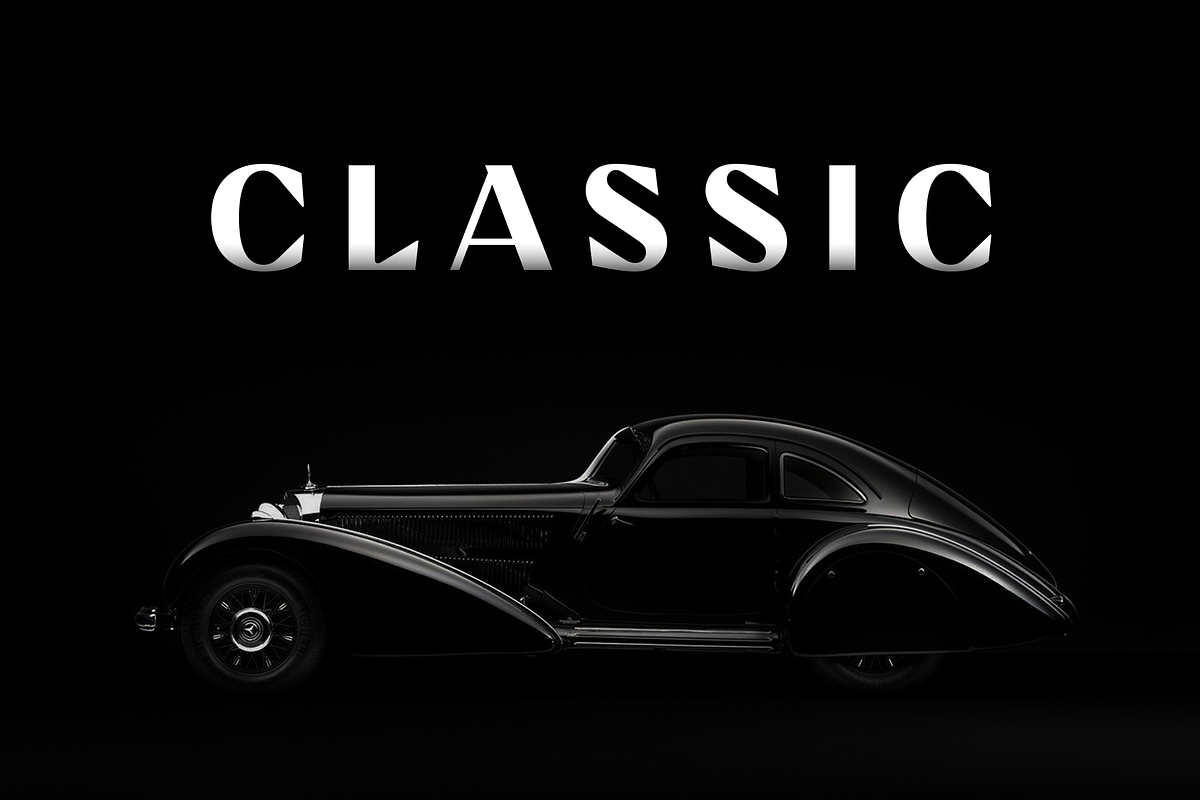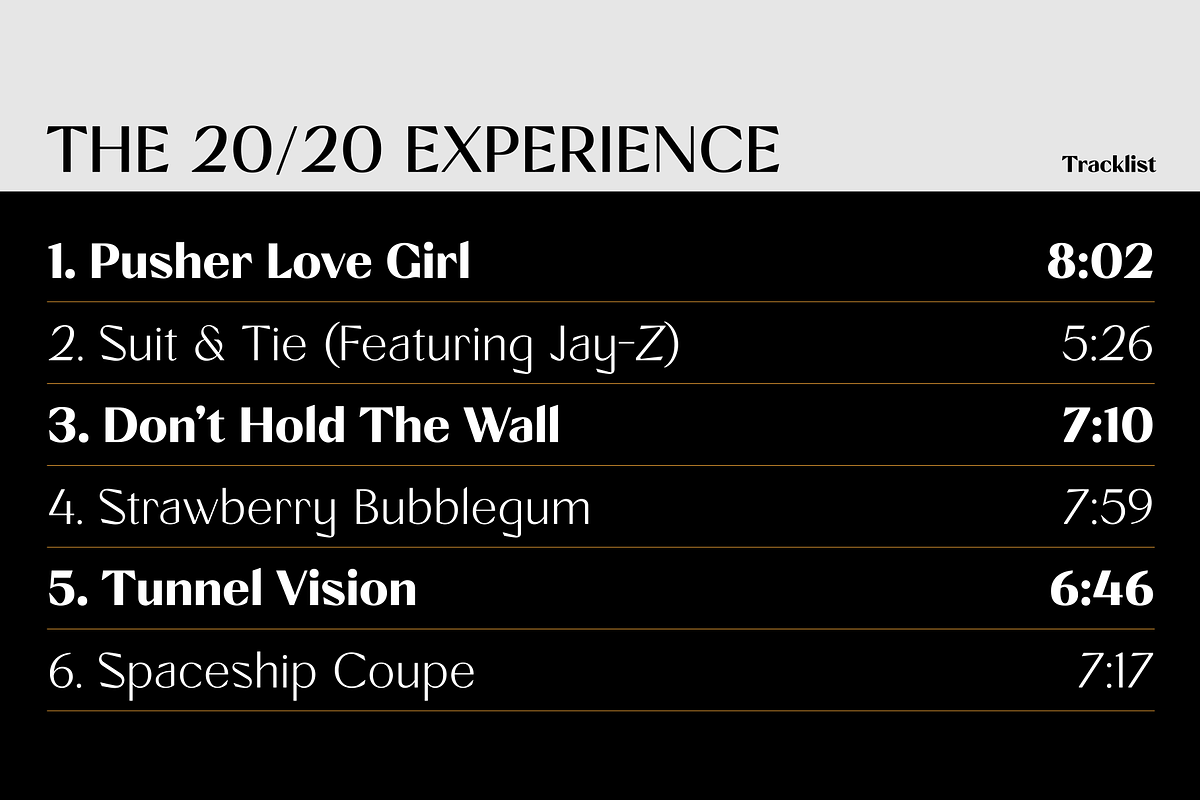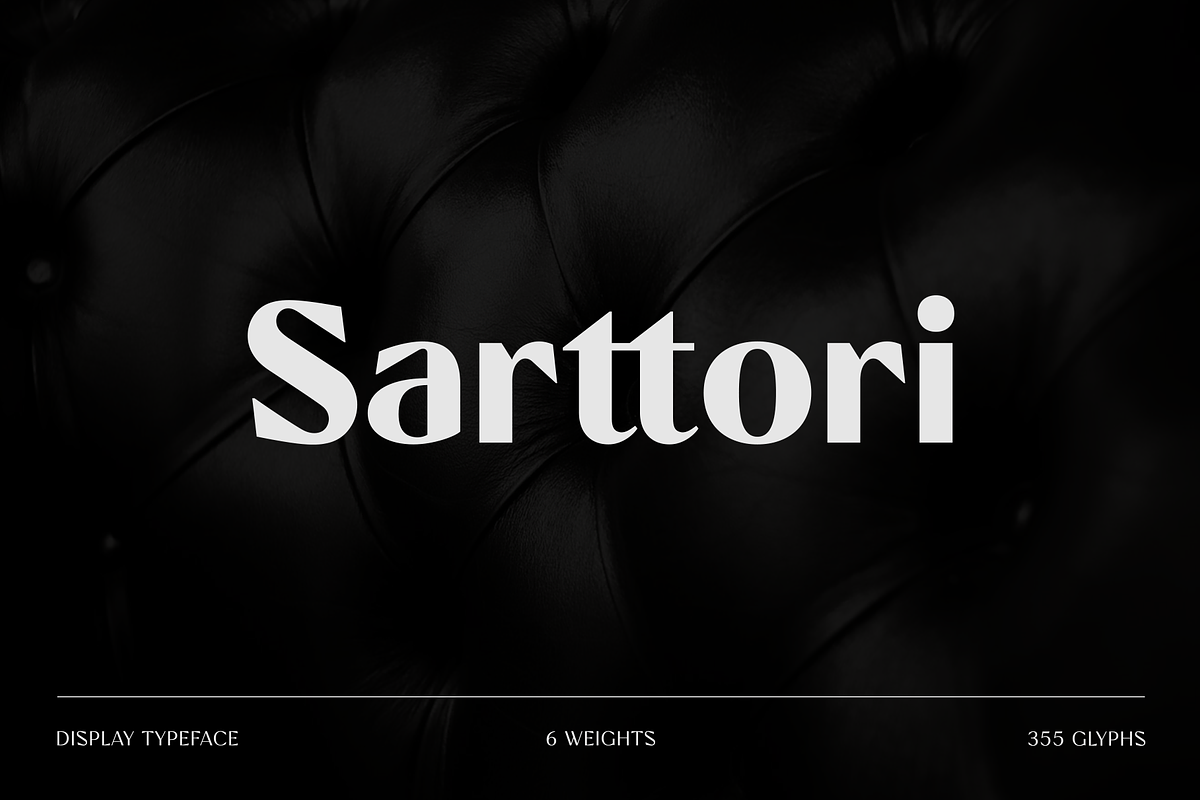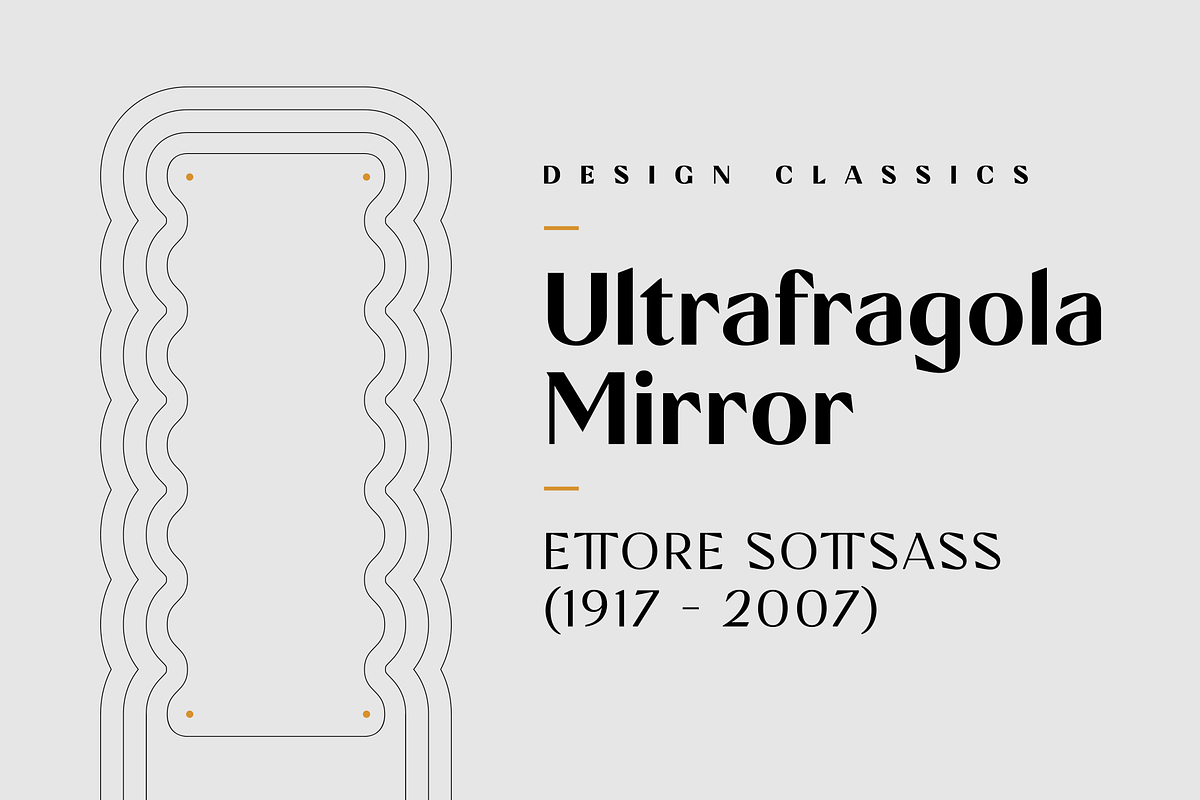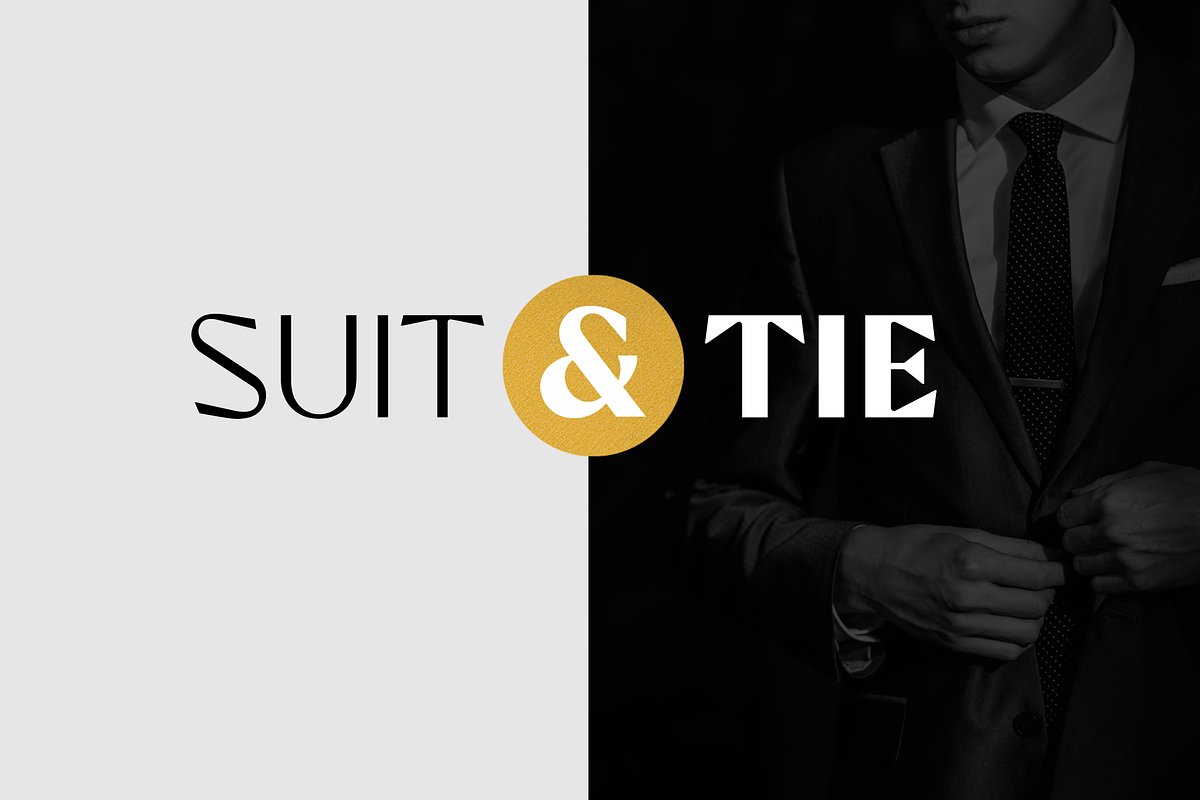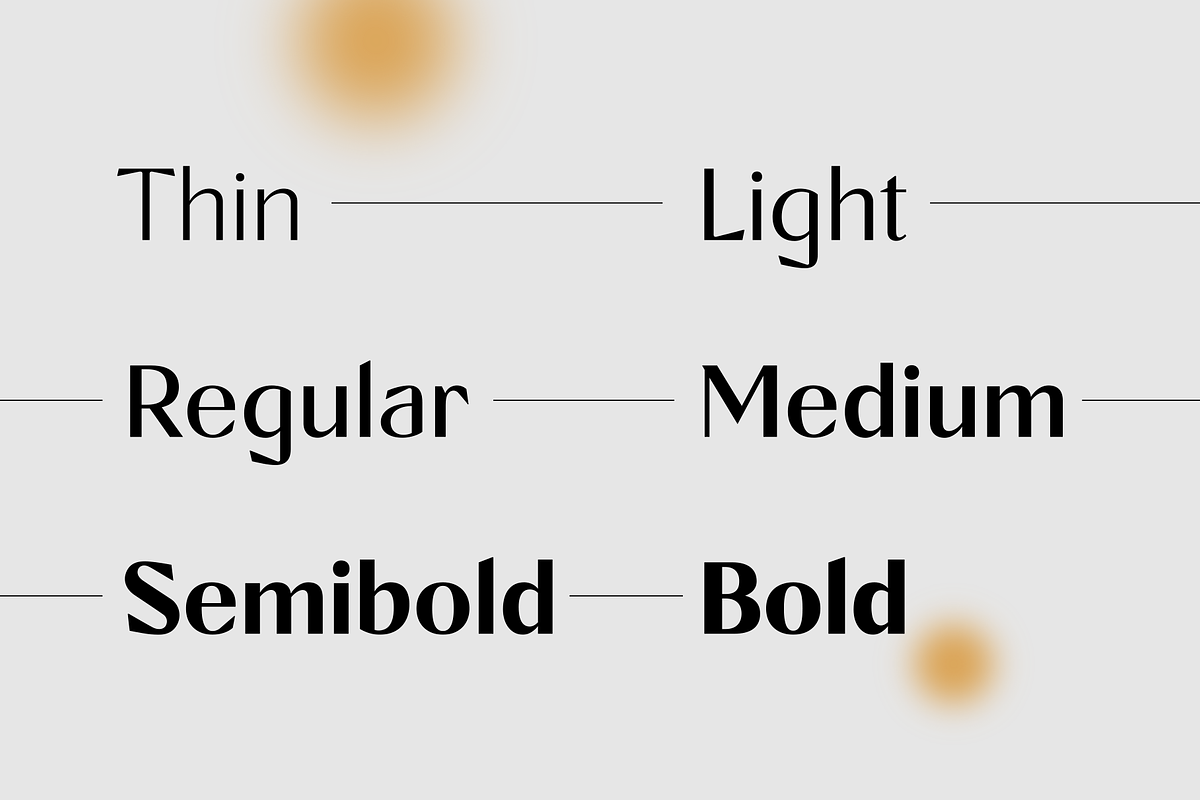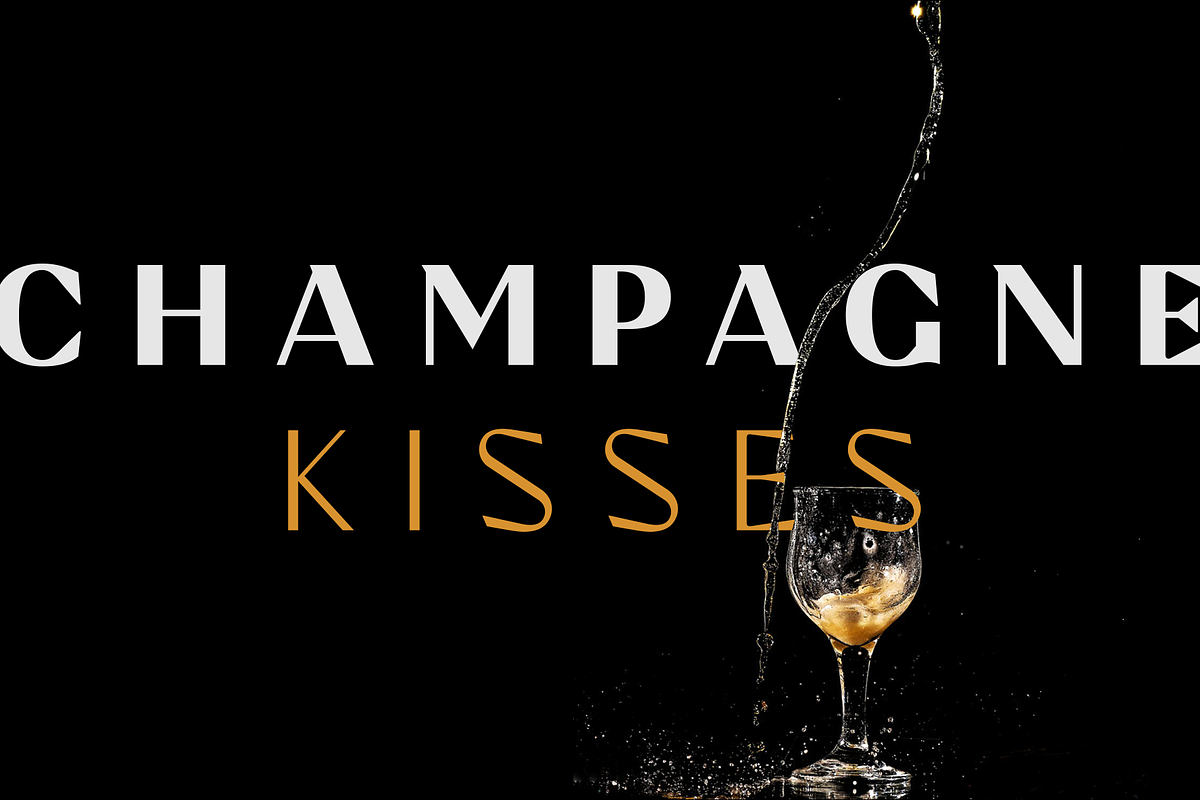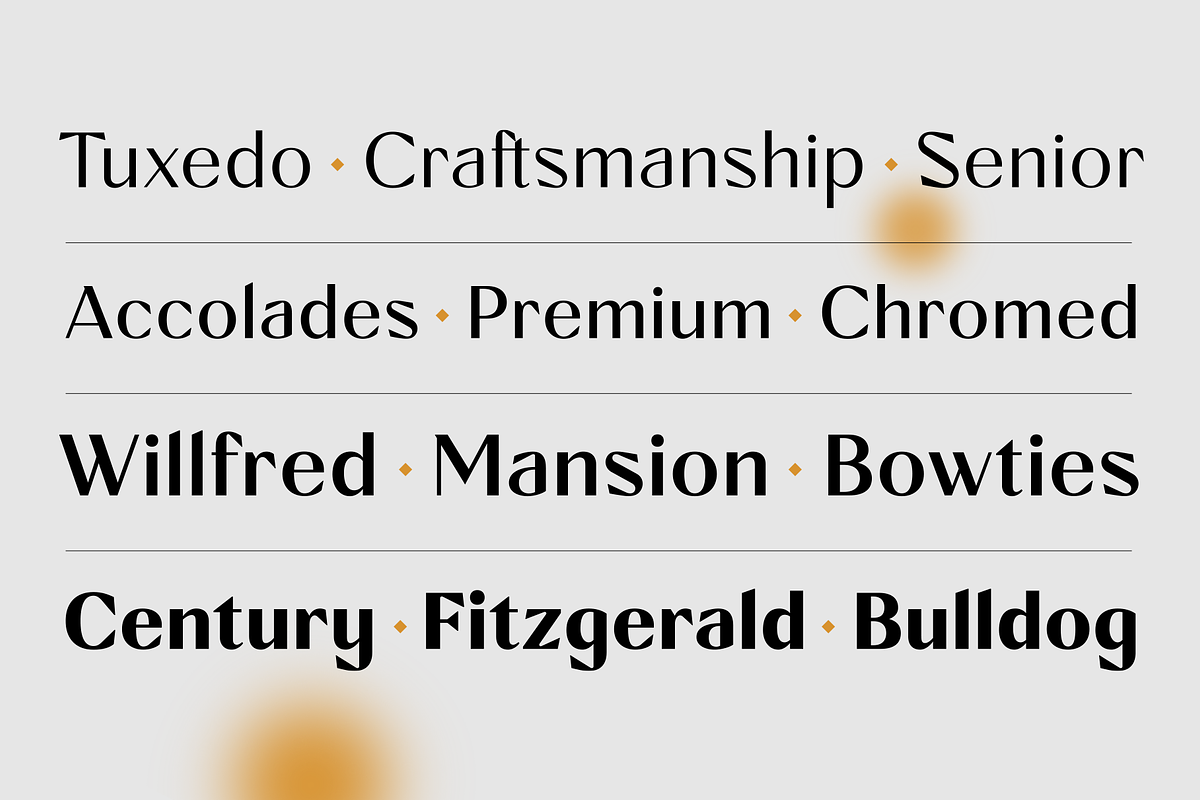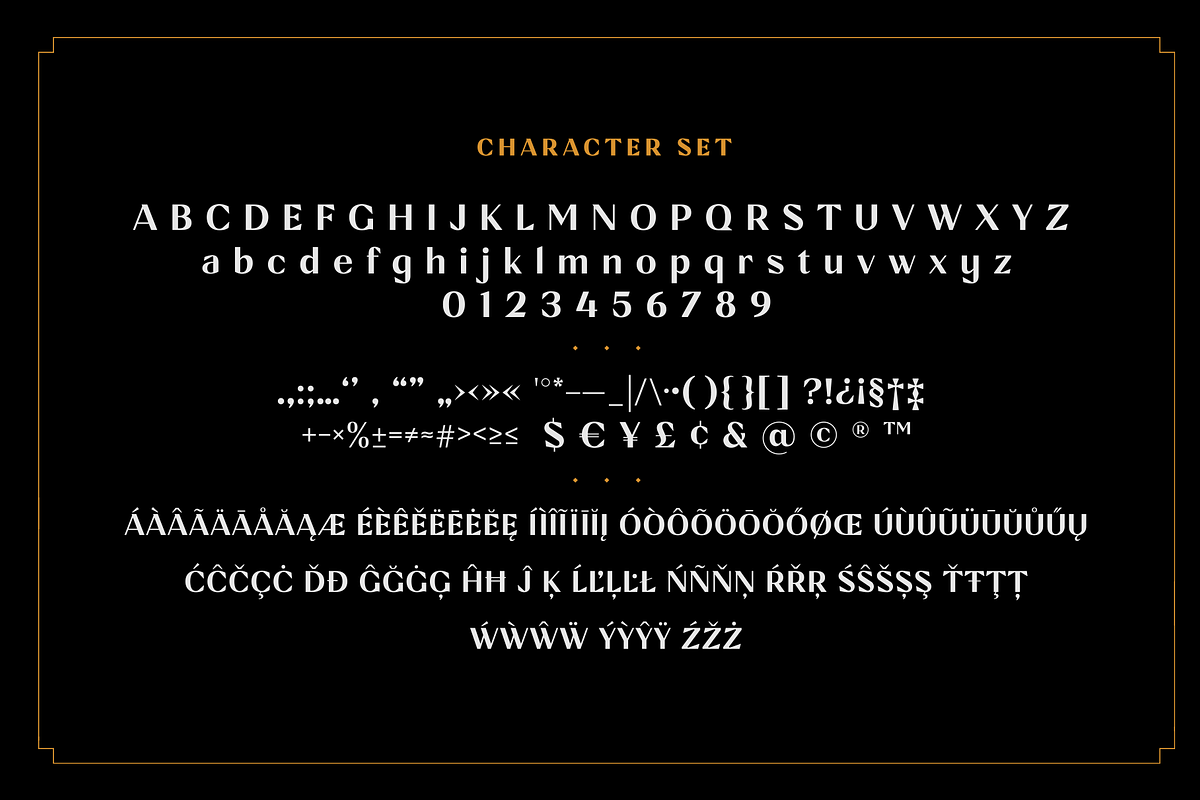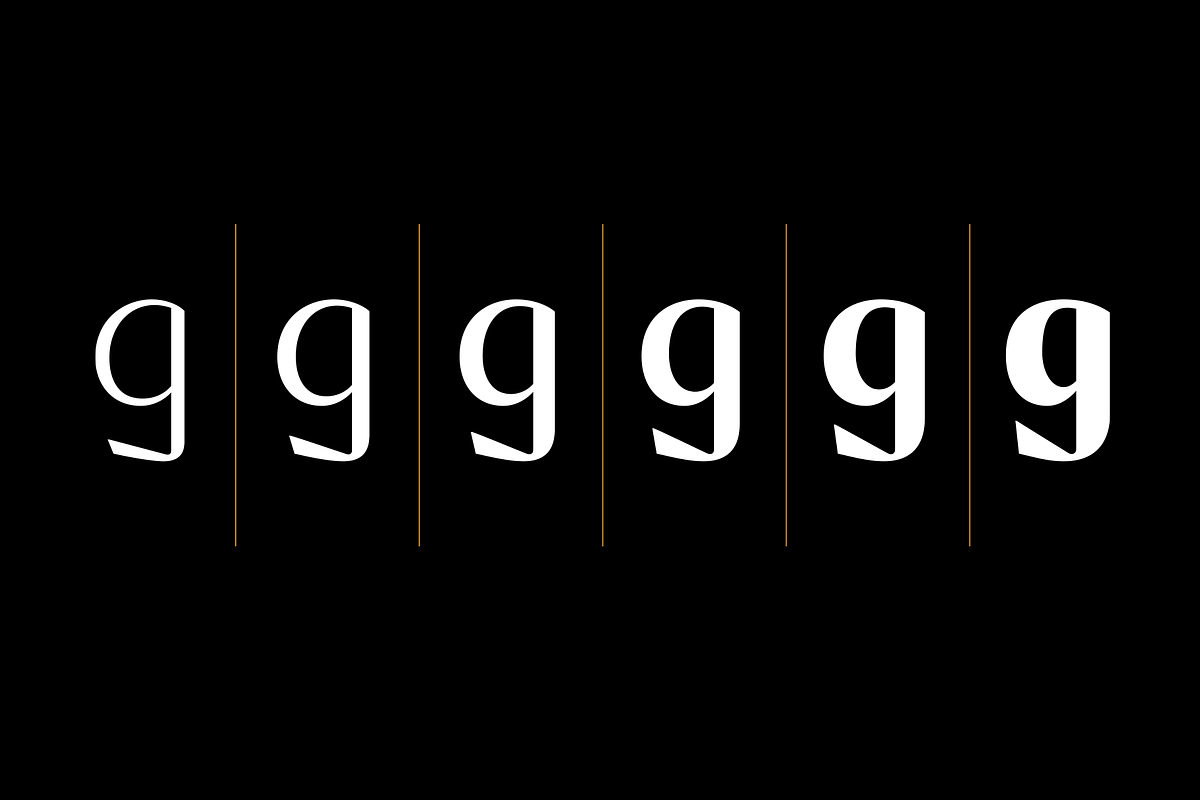
Sarttori - Display Font
Sarttori is a display font with the perfect balance between classic and modern, mixing serif and sans serif styles in a unique way. Its timeless appeal makes Sarttori a great choice for stylish and impactful designs. The font family includes 6 different weights, uppercase, lowercase, punctuation, ligatures and multilingual support.
- 6 different weights
- 355 glyphs